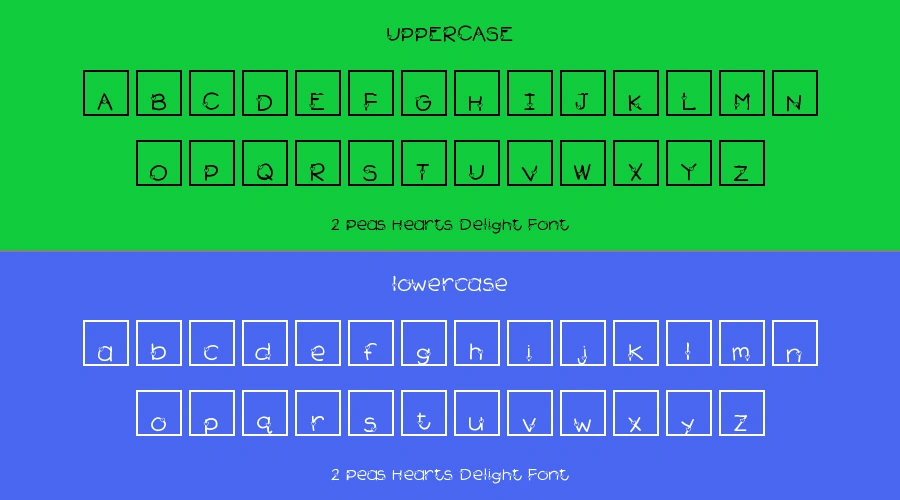
About 2 Peas Hearts Delight Font
When typographic excellence matters most, 2 Peas Hearts Delight Font delivers through its thoughtful blend of architectural precision and reading ease. Specially crafted for corporate identity, it offers the memorability and technical precision required for sophisticated design work. Every detail serves a purpose.
The character set showcases thoughtful details like organic curves alongside functional lining figures. This proves especially valuable in digital banners, where archive stability directly influences results. Particular attention was paid to character width and aspirational quality during development.